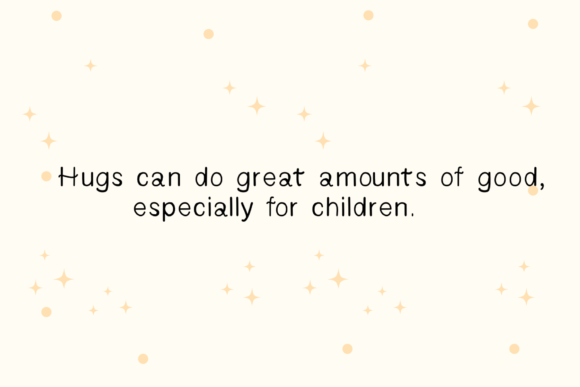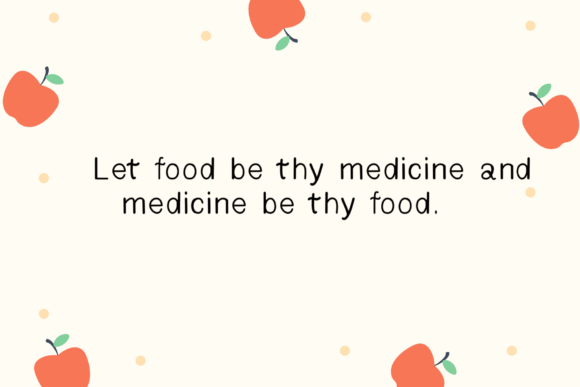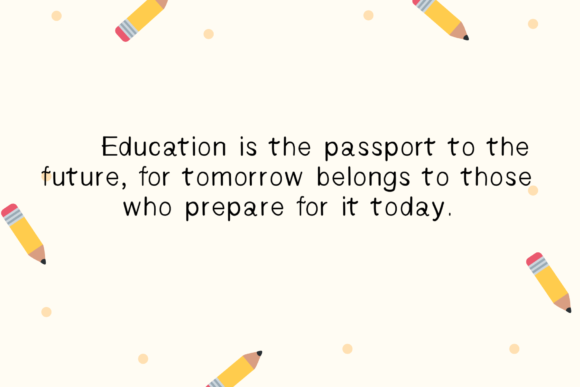
Lovely Font
Meet “Lovely,” a font that lives up to its name with a charming and delightful handwritten style. Boasting lightweight characters, this font is not only lovely but also versatile, making it an excellent choice for a range of applications, particularly in the realms of social media and web design. Graphic artists, too, will find Lovely to be a fantastic addition to their toolkit.
The lightweight characters of Lovely lend a subtle and graceful touch to your text, making it an ideal font for conveying a sense of elegance and approachability. Whether you’re crafting social media posts, designing for the web, or creating graphics that demand a handwritten aesthetic, Lovely rises to the occasion with its delightful charm.
In the realm of social media, where visual appeal and readability are paramount, Lovely shines as a font that effortlessly captures attention. Its handwritten style adds a personal and friendly touch, creating an inviting atmosphere for your audience.
Web designers will appreciate Lovely’s adaptability, as it seamlessly integrates into various online platforms, enhancing the overall user experience. The font’s lovely characteristics make it well-suited for headlines, body text, or any element where a touch of charm is desired.
For graphic artists, Lovely becomes a reliable companion, offering a delightful handwritten option for various projects. Whether you’re working on posters, illustrations, or branding materials, this font adds a unique and artistic flair to your creations.
In essence, Lovely is more than just a font; it’s a design asset that elevates your projects with its lovely handwritten style. Its lightweight characters make it a standout choice for social media, web design, and graphic artistry, contributing to a visually appealing and engaging outcome. As you explore the creative possibilities with Lovely, you’ll find that it effortlessly infuses your designs with a touch of loveliness and charm.